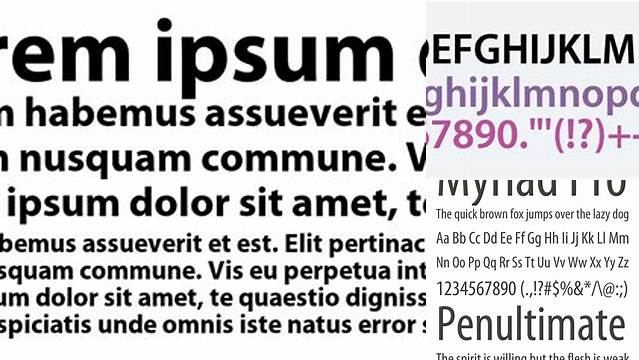
What is Myriad Set Pro Bold? Unveiling the Font's Essence
Let's start with the basics. Myriad Set Pro Bold is a member of the Myriad family, a humanist sans-serif typeface designed by Robert Slimbach and Carol Twombly for Adobe. It's renowned for its clean lines, excellent readability, and a modern aesthetic that makes it a perfect choice for a wide range of applications. The Bold variant, as the name suggests, offers a heavier weight compared to the regular Myriad styles, providing a strong visual impact and making it ideal for headlines, titles, and any text that needs to grab attention. This particular weight excels at making a statement. The original Myriad typeface was designed to be a versatile workhorse, suitable for everything from body text to display use. The Myriad Set Pro Bold takes this versatility up a notch, offering a bolder presence that commands attention. Think of it as the assertive sibling in the Myriad family, confident and ready to make a statement. You can use it in various design projects, guys, and it won't disappoint. Its clean lines and legible design make it a fantastic choice for headings. It’s the kind of font that is versatile enough to work well across different mediums, from print to digital. The design of the font gives it an extremely modern vibe. It's an excellent choice for anything where you want the text to be readable. You will see it everywhere, from the logos of big brands to the user interfaces of your favorite apps.
History and Design Characteristics of Myriad Set Pro Bold
The Myriad font family, including the Bold variant, has an interesting history. It was developed in the early 1990s with the aim of creating a typeface that would be both highly readable and aesthetically pleasing. The designers, Robert Slimbach and Carol Twombly, are both incredibly respected in the world of typography. The design itself is rooted in the humanist tradition, which emphasizes legibility and a natural feel. The sans-serif nature of Myriad Set Pro Bold, meaning it lacks the small strokes (serifs) at the ends of letters, contributes to its modern appearance and readability on screens. The bold weight enhances these characteristics, ensuring that the text remains clear and impactful even at smaller sizes or in less-than-ideal viewing conditions. The design features of Myriad Set Pro Bold contribute to its overall appeal and usability. The consistent stroke weights, open counters (the spaces within letters like 'a' and 'e'), and a balanced x-height (the height of lowercase letters) all contribute to its excellent readability. The font also includes a wide range of characters, including various ligatures and alternative glyphs, which can be used to add personality and visual interest to your designs. This is what makes it such a versatile choice. You will be amazed by the flexibility of the typeface.
Using Myriad Set Pro Bold in Your Design Projects
So, you've downloaded Myriad Set Pro Bold. Now what? This font is incredibly versatile and can be applied to a multitude of design projects. Here are some ideas on how to use it effectively:
Best Practices for Utilizing the Font
- Headlines and Titles: The bold weight of the font makes it a perfect choice for attention-grabbing headlines, titles, and subheadings. It provides a strong visual anchor for your content.
- Logos and Branding: Myriad Set Pro Bold can be used to create clean and modern logos that convey professionalism and trustworthiness. It's a simple and effective choice for brands wanting a contemporary look.
- Print Materials: Whether it's brochures, posters, or flyers, this font is easy to read and looks great on paper. Its clarity makes it ideal for communicating information effectively.
- Digital Design: Websites, apps, and other digital interfaces can benefit from the font's readability. It ensures your content is accessible and engaging for a wide audience.
Design Examples and Inspiration
- Minimalist Designs: Myriad Set Pro Bold's clean lines complement minimalist designs, creating a sophisticated and uncluttered look.